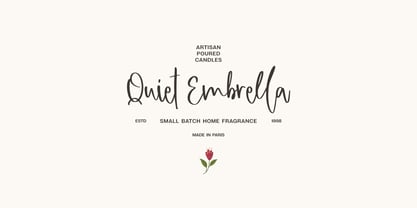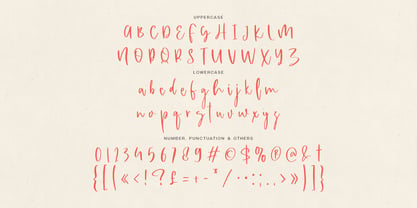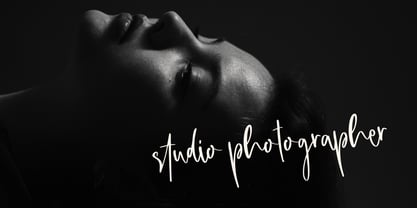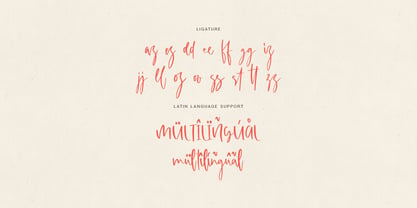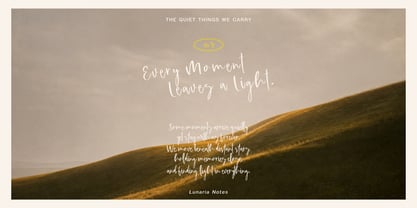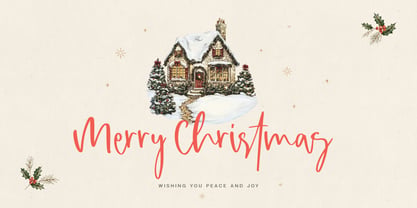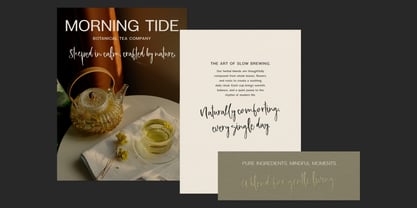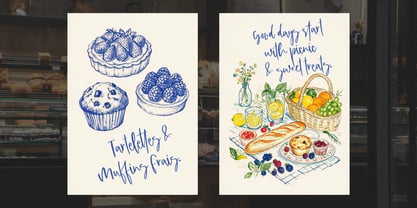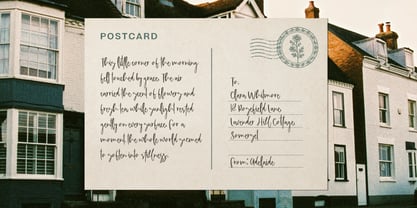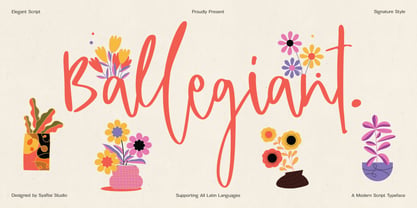
Ballegiant
by Syafbe
The Ballegiant Font Family was designed by Syafwan Mus and published by Syafbe. Ballegiant contains 1 styles. More about this family
Introducing Ballegiant, a signature-style modern script font by Syafbe Studio, designed to inject an elegant, organic, and authentic feel into your creative projects. Its fluid strokes mimic natural handwriting, making it highly captivating and versatile for various premium design needs. This font is the perfect choice to elevate your artisan product branding, exclusive packaging, photography watermarks, greeting cards, and aesthetic quote typography—delivering a personal touch while maintaining a highly professional look.
Beyond its beautiful visual aesthetics, Ballegiant also offers maximum functionality to streamline your creative process. Supporting all Latin languages, this font comes with a highly comprehensive character set, including uppercase, lowercase, numbers, and full punctuation. Get Ballegiant today and make it your ultimate design asset to create stunning visuals that will instantly capture the hearts of your clients and buyers!